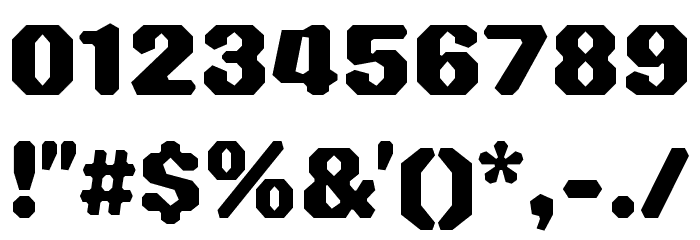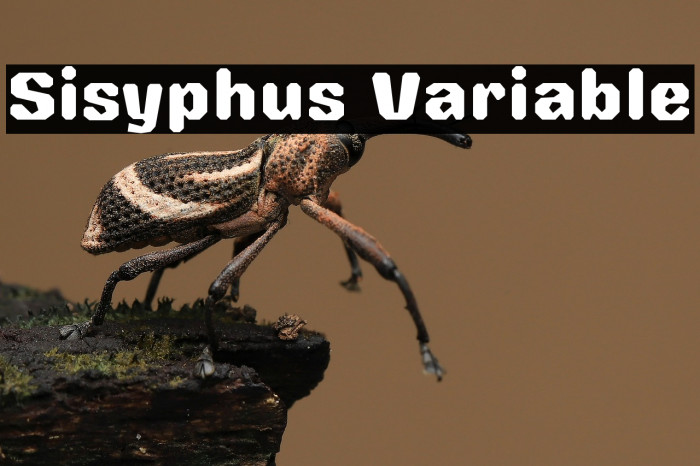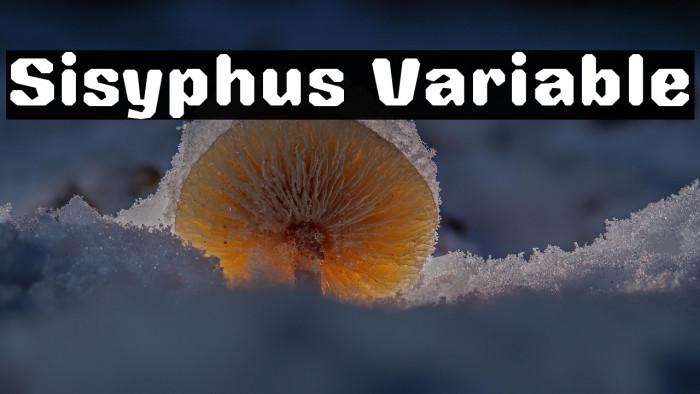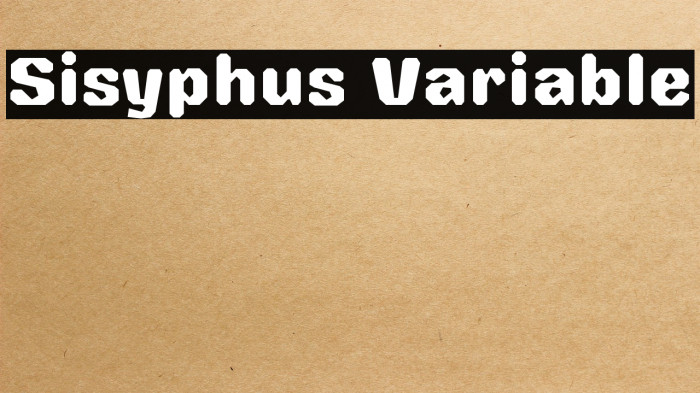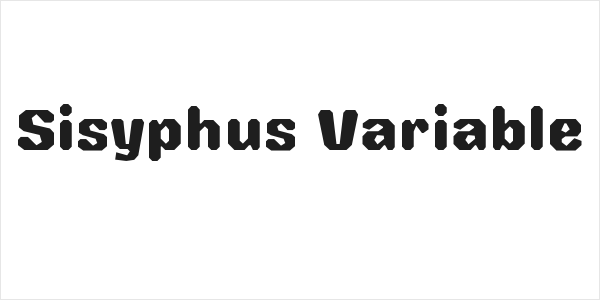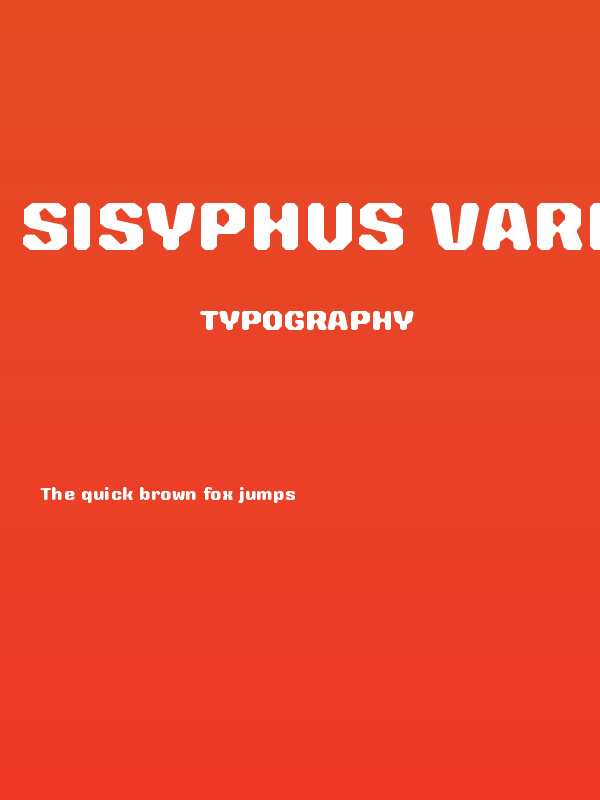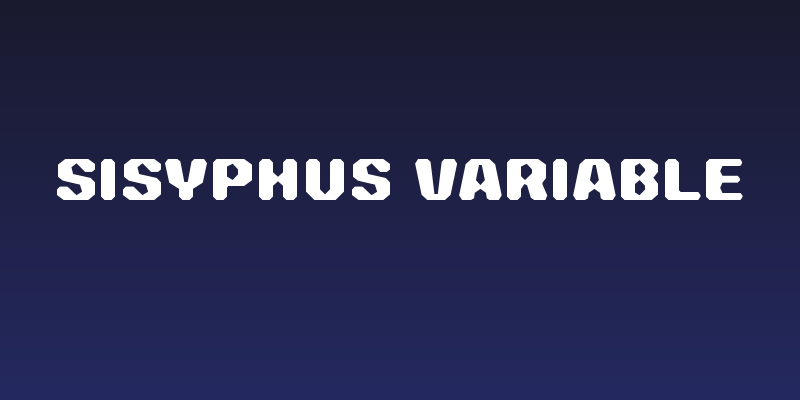
Sisyphus Variable Font
Sisyphus Variable Description
This font features a bold, geometric design with strong, angular lines and a robust presence. The characters are uniformly wide, giving it a monospaced appearance, although it is not strictly monospaced. The uppercase letters are particularly striking, with a blocky, industrial feel that suggests strength and stability. The lowercase letters maintain this boldness while offering a slightly softer edge, making them versatile for various design contexts. Numbers and special characters are consistent with the overall style, ensuring a cohesive look across all text elements. This font is well-suited for projects that require a strong visual impact.
| Proposed Projects | Ideal for branding, posters, headlines, and any design requiring a strong, impactful typeface. |